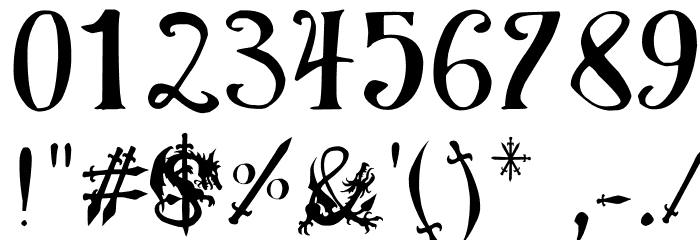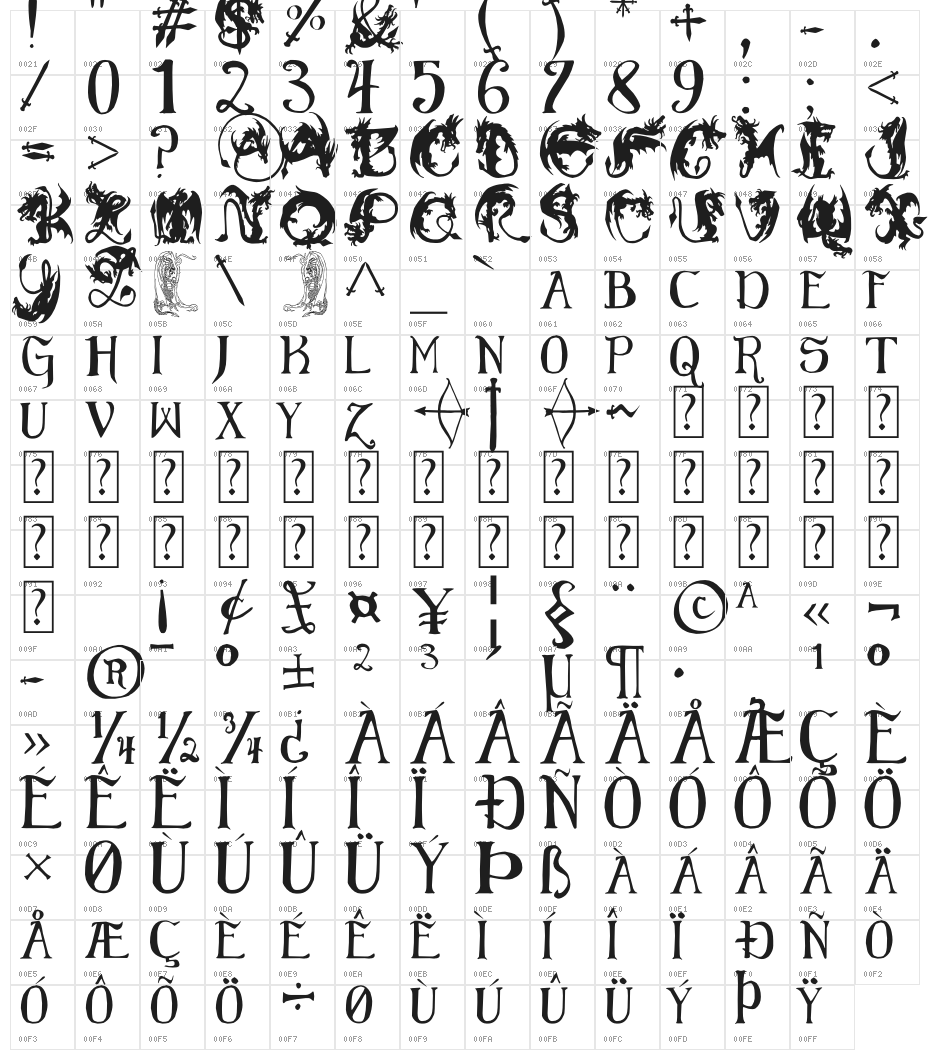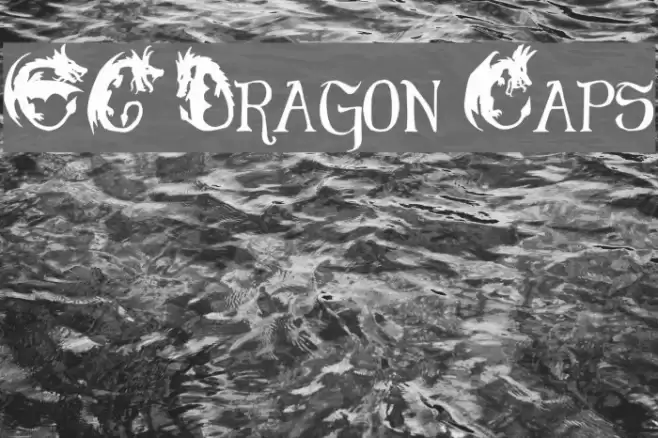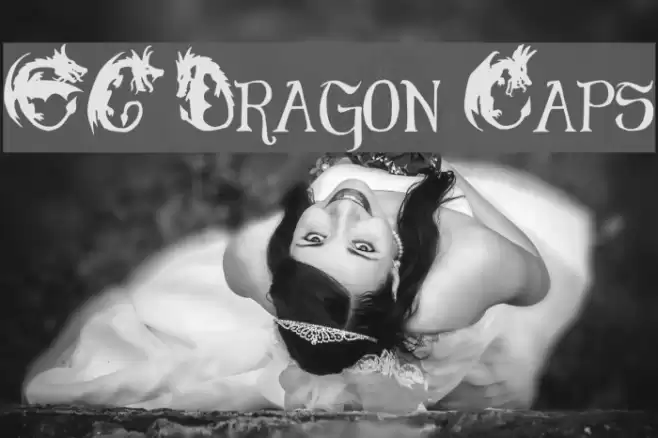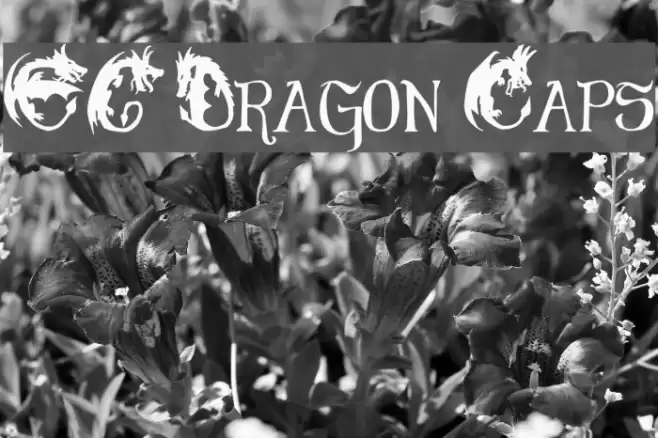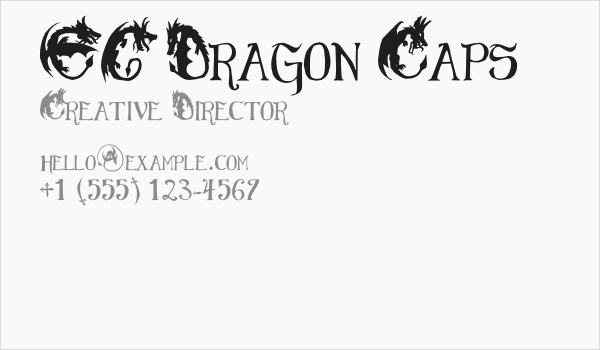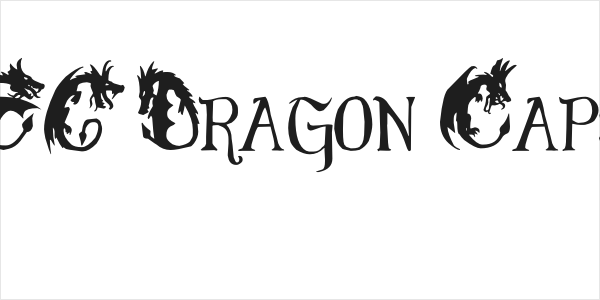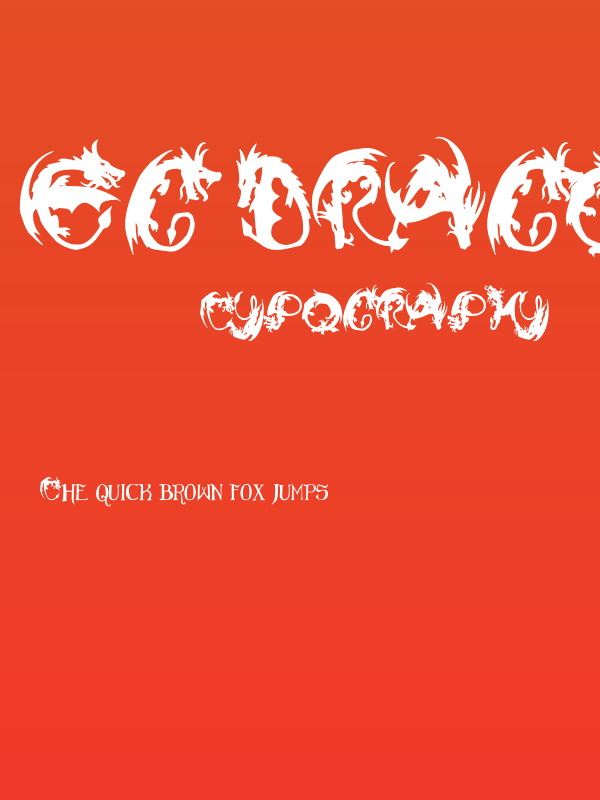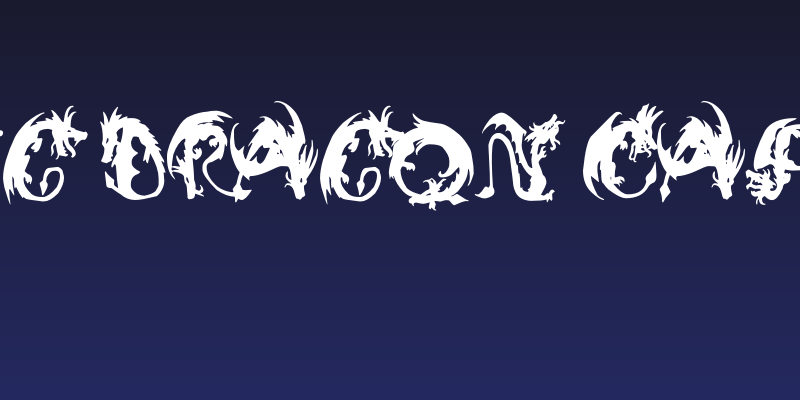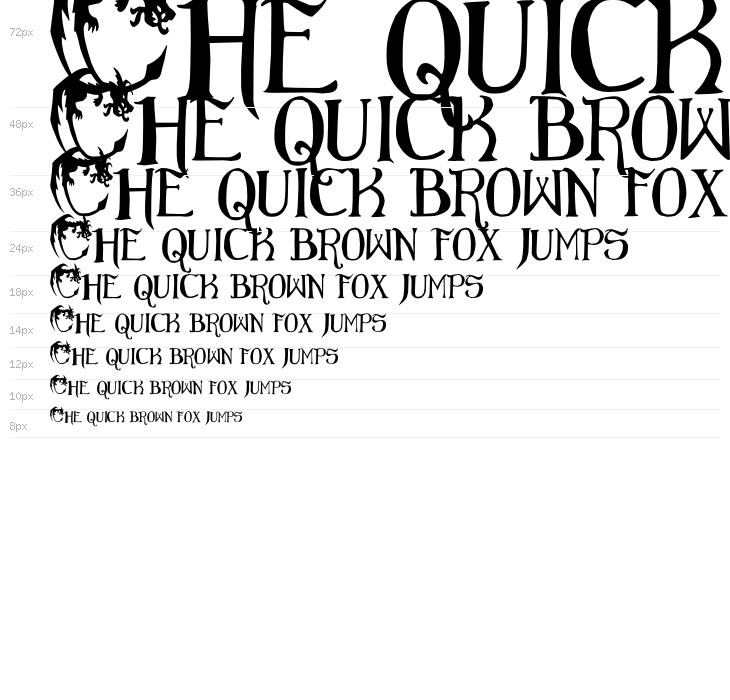
EG Dragon Caps Font
EG Dragon Caps Description
This font features a unique and dramatic design, with uppercase letters resembling intricate dragon motifs. The first set of uppercase letters is highly decorative, with each character incorporating dragon-like elements, creating a sense of movement and fantasy. The second set of uppercase letters is more traditional, with a bold and slightly gothic style. The lowercase letters maintain a consistent style with the uppercase, offering a cohesive look. Numbers are bold and clear, with a slight decorative flair. Special characters are creatively designed, some incorporating dragon imagery, enhancing the overall mythical theme. This font is ideal for projects that require a touch of fantasy and drama.
| Overall Style | Decorative, Fantasy |
| Proposed Projects | Ideal for fantasy-themed book covers, game titles, posters, and branding that requires a mythical or dramatic touch. |